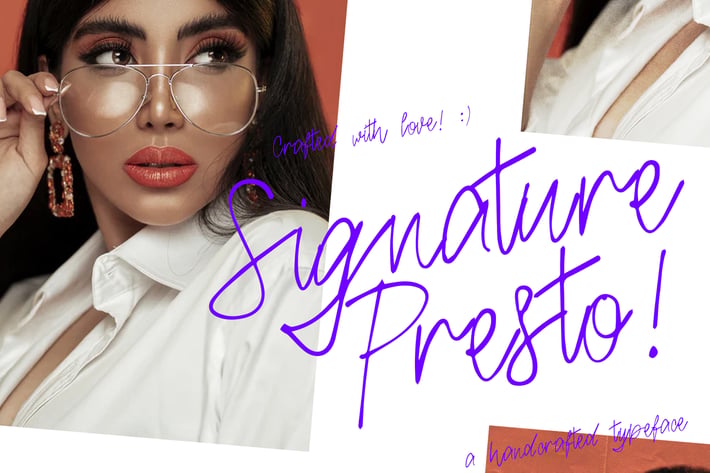
Signature Presto Typeface
Signature Presto is a casual font with natural brush stroke, comes with uppercase, lowercase, numerals, and punctuation. This font will be perfect pick for various designs & artworks like social media post, brand type, posters, merchandise, packaging, headlines, merchandises, t-shirt, and many more..
Uppercase Letters
Lowercase alternative Letters
Numbers and Punctuation